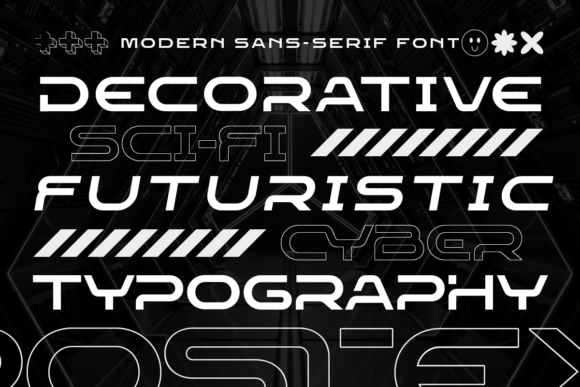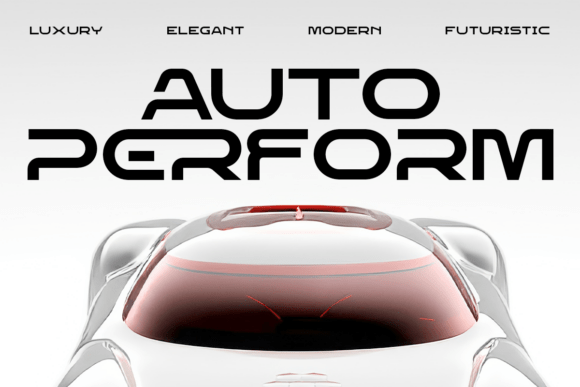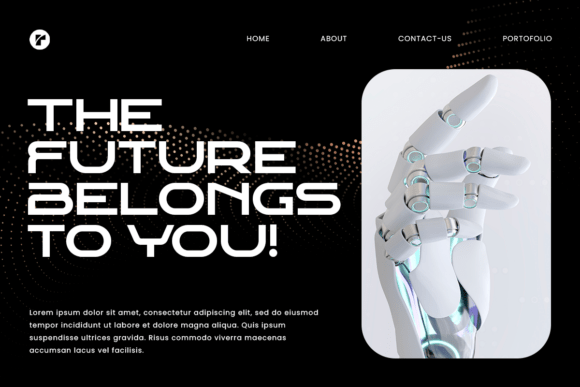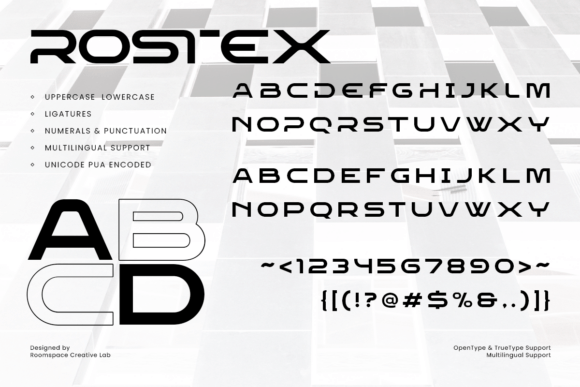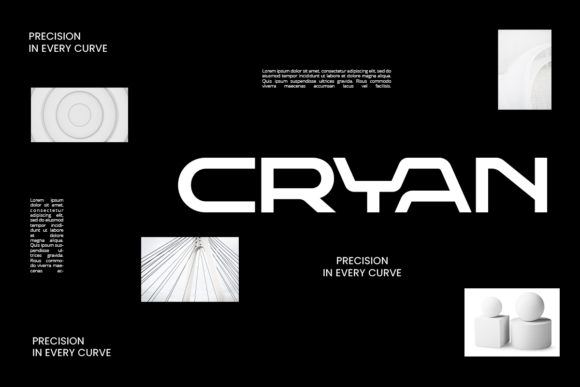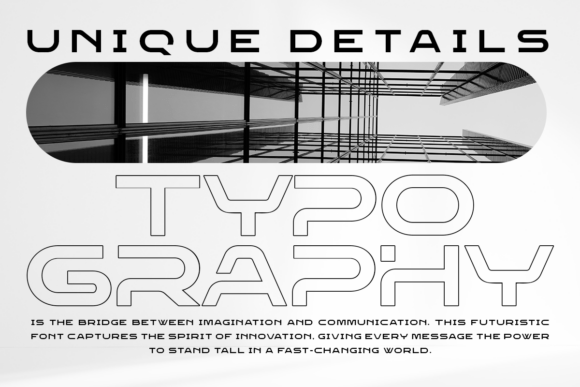
Introduction to Rostex Regular Font
Have you ever found yourself stuck on a creative project, struggling to bring that final spark to life? You’ve got the idea, the concept, but something’s missing. That’s where the right design resource can make all the difference. For designers looking to give their projects a cutting-edge edge, the Rostex Regular Font is an absolute game-changer.
With its sleek geometry and modern techno aesthetics, Rostex Regular Font is the perfect choice for projects that want to stand out from the crowd. Whether you’re working on tech branding, digital products, or sci-fi posters, this high-quality font is sure to bring a futuristic presence to your design.
But what really sets Rostex Regular Font apart is its versatility. With transparent backgrounds and effortless access to all glyphs, swashes, and alternate characters, you can customize your creations with ease. And the best part? It’s available for free download, making it an invaluable addition to any designer’s toolkit.
Key Features of Rostex Regular Font
- High-quality design: Rostex Regular Font offers a clean and modern look, making it perfect for creative projects that require a sophisticated touch.
- Unique characteristics: Rostex Regular Font features a unique blend of modern and classic design elements, making it a standout choice for designers looking to add a touch of sophistication to their creative projects.
- Design versatility: This font is highly versatile and can be used in a variety of design contexts, from logos and branding to signage and wayfinding systems.
Honest Review: Rostex Regular Font
I recently came across the Rostex Regular Font, and I was excited to try it out for my creative project. After downloading and experimenting with it, here’s my honest review.
- High-quality design: The Rostex Regular Font has a clean and modern design that looks great on a transparent background.
- Flexibility: The font is highly versatile and can be used for a variety of creative projects, from web design to print materials.
- Limited language support: The font may not be optimized for certain languages, which could be a limitation for projects that require multilingual support.
- No bold or italic versions: While the regular font is great, it would be nice to have bold and italic versions available for added flexibility.
Overall, the Rostex Regular Font is a great addition to any designer’s toolkit. While it has some limitations, its high-quality design and free availability make it a valuable design resource for creative projects.
Tips for Getting the Most Out of Rostex Regular Font
To get the most out of Rostex Regular Font, use it on a transparent background to create a clean and modern design. Experiment with different font sizes and colors to add depth and interest to your project.
Common Use Cases for Rostex Regular Font
The Rostex Regular Font is perfect for a variety of creative projects, including logos, business cards, and social media graphics. Its high-quality design makes it an excellent choice for any project requiring a professional look.